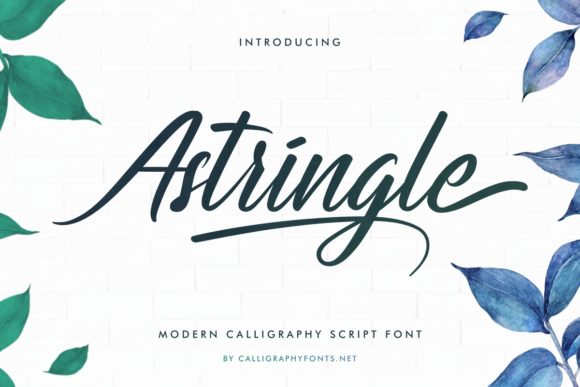
Astringle Font: Elevate Your Designs with Elegance and Sophistication
In the world of typography, a font can make or break a design. For designers and crafters seeking to add a touch of sophistication and delicacy to their creations, Astringle Font is an exceptional choice. This beautifully crafted handwritten font is designed to refine and elevate your designs, making them truly stunning.
The Beauty of Astringle Font
Astringle Font is a masterpiece of typographic artistry. Its refined and delicate strokes exude elegance, making it perfect for a wide range of design applications. Whether you’re working on a logo, branding materials, invitations, or any other creative project, Astringle Font is sure to impress. Its sophisticated appearance adds a touch of luxury and refinement, instantly elevating the overall aesthetic of your design.
One of the standout features of Astringle Font is its PUA (Private Use Area) encoding. This means that accessing the font’s extensive range of glyphs and swashes is incredibly easy. With PUA encoding, you can effortlessly navigate through the various characters and decorative elements, allowing you to add unique touches to your designs. This feature is particularly useful for designers who want to create custom and distinctive typography without the hassle of complicated font management.
What Makes Astringle Font Special?
- Sophisticated Handwritten Style: Astringle Font boasts a beautiful, handwritten appearance that adds a personal and elegant touch to any design.
- Refined and Delicate: The font’s delicate strokes and refined aesthetic make it perfect for creating sophisticated and eye-catching designs.
- PUA Encoded: Enjoy easy access to all glyphs and swashes, making it simple to customize your typography.
- Versatile: Suitable for a wide range of design projects, from logos and branding to invitations and more.
Uses for Astringle Font
Astringle Font’s versatility makes it an excellent choice for various design applications. Here are some ideas to get you started:
- Logo Design: Create a memorable and elegant logo that stands out from the crowd.
- Branding Materials: Develop a cohesive brand identity with Astringle Font’s sophisticated appearance.
- Invitations and Stationery: Add a touch of luxury to your invitations, business cards, and other stationery.
- Packaging Design: Elevate your product packaging with a font that exudes elegance and refinement.
Astringle Font is a beautiful, sophisticated handwritten font that can elevate your designs to new heights. Its refined and delicate appearance, combined with PUA encoding for easy access to glyphs and swashes, makes it an excellent choice for designers and crafters. Whether you’re working on a logo, branding materials, or any other creative project, Astringle Font is sure to impress. With its versatility and stunning aesthetic, this font is a valuable addition to any designer’s toolkit.